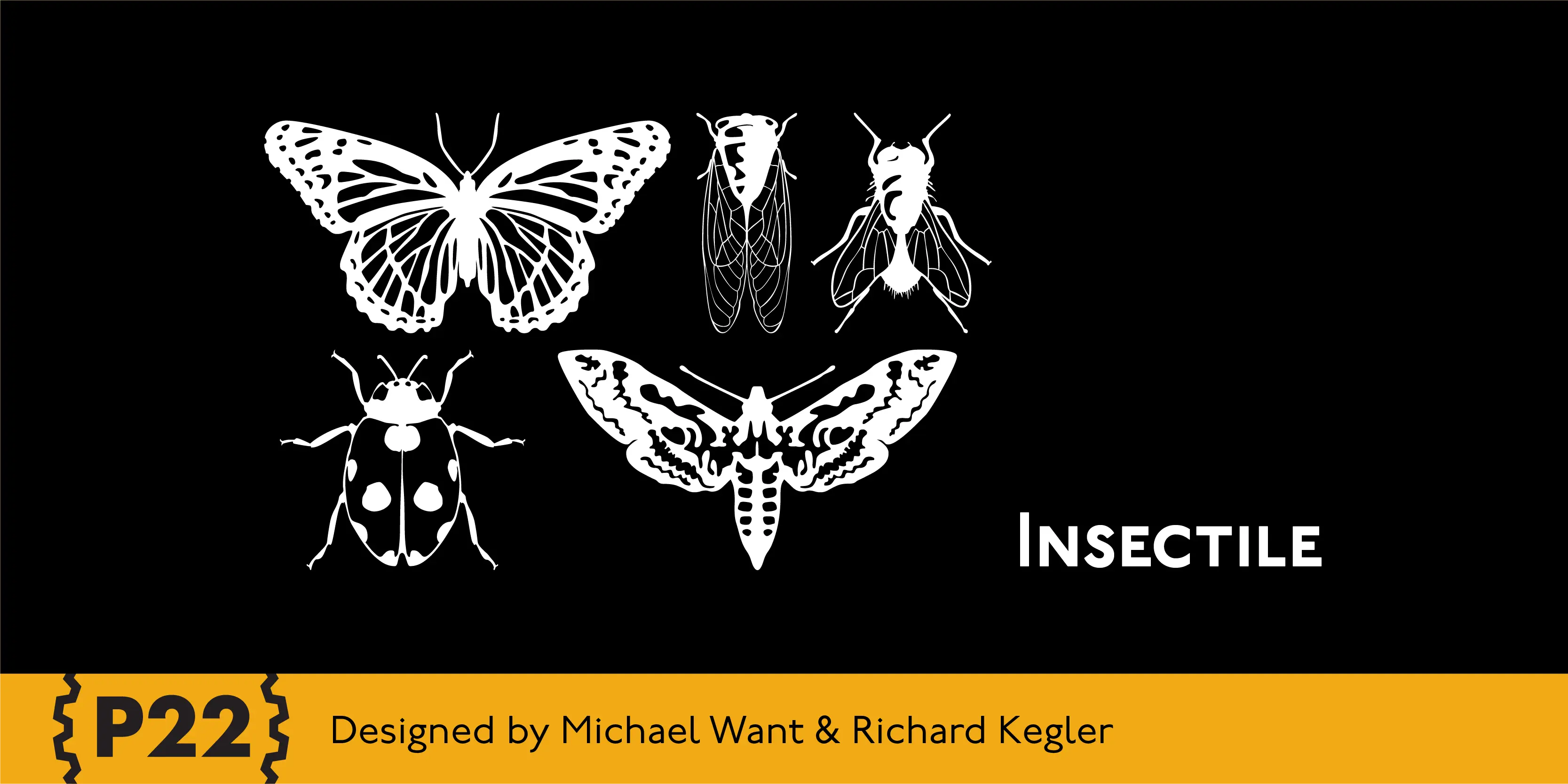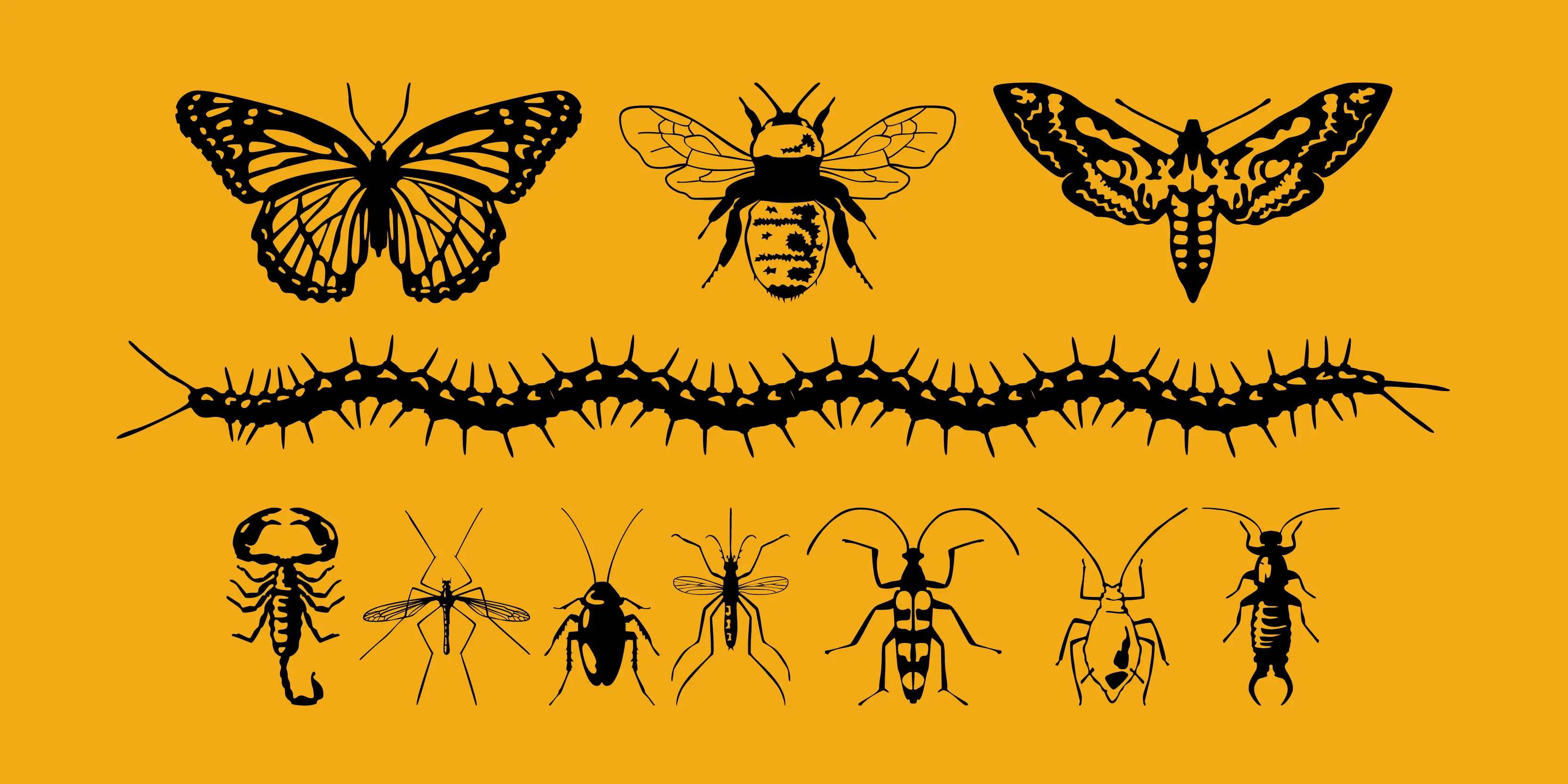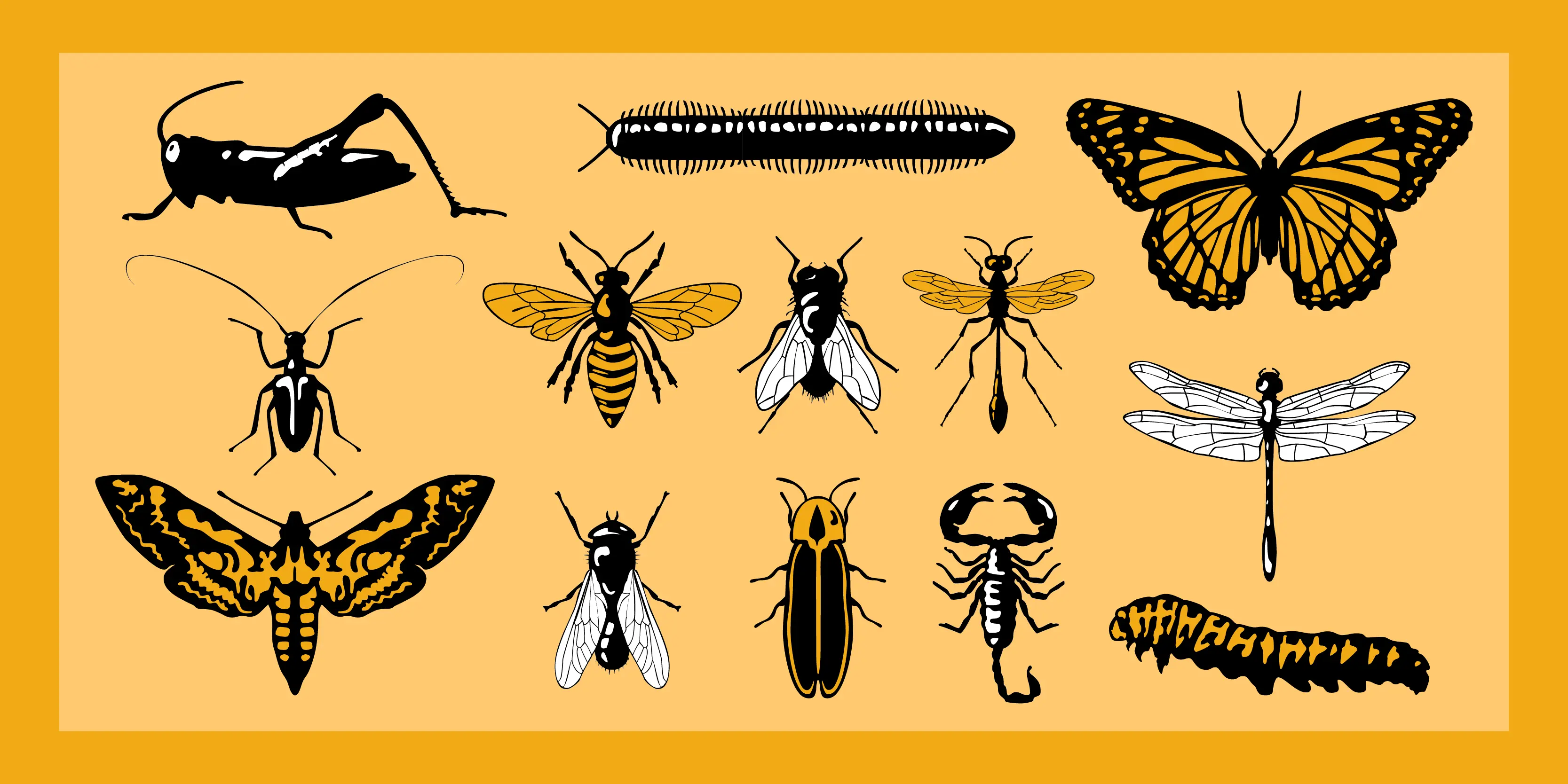
Insectile Font Family
Insectile
Programmers often try to knock the “bugs” out of their computers, but P22 allows you to install them and use them to your advantage. Insectile is a set with 38 accurate insect illustrations and a font (Infestia) made up of actual scanned and rearranged insect parts. Included with this set is an informative fold out chart.